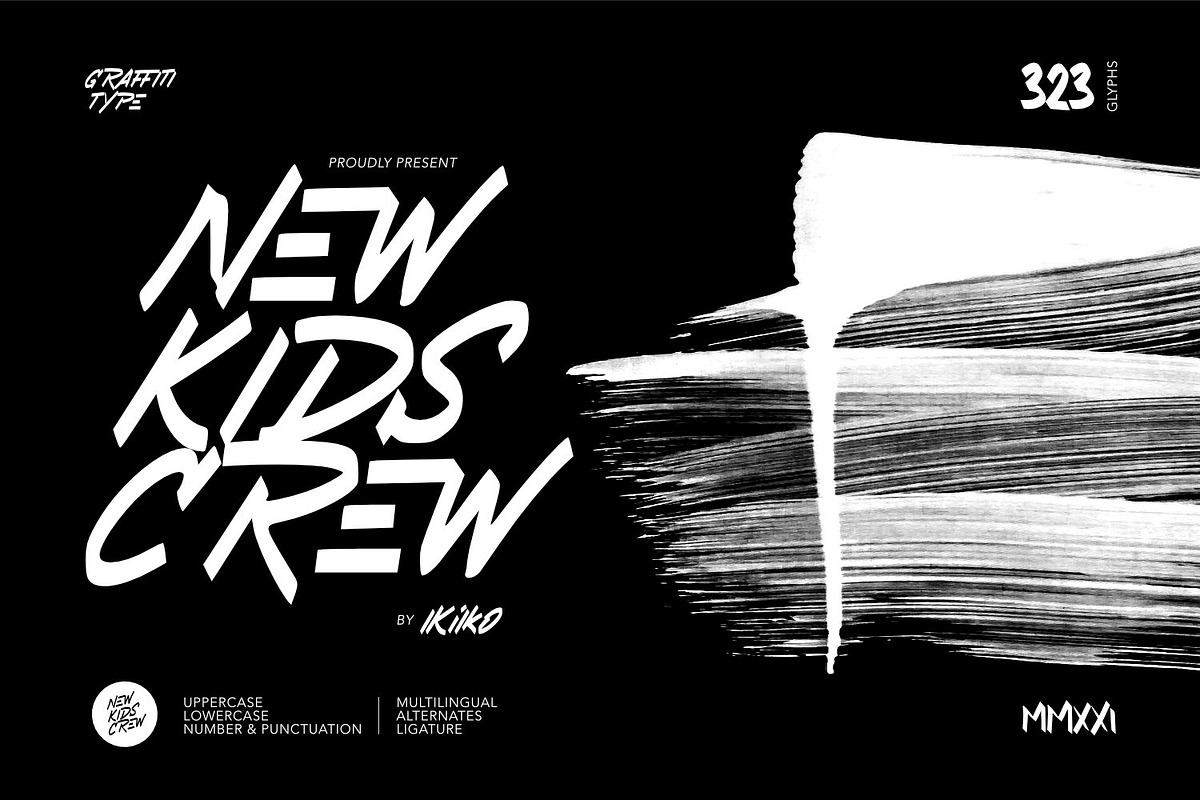
New Kids Crew - Graffiti Type Free Download
New Kids Crew - Graffiti Type Free Download is a bold and energetic typeface inspired by street art and graffiti culture. With its rough edges and urban flair, this font is perfect for projects that need to make a statement, such as music posters, streetwear branding, event flyers, and edgy social media content. Its raw, unrefined look adds an authentic, rebellious vibe to any design, while still maintaining readability and style. Whether you're creating graffiti-inspired logos, promotional materials, or artwork for an underground brand, New Kids Crew - Graffiti Type Free Download lets you test its dynamic design in personal projects before purchasing a commercial license. Add an urban edge to your designs with this striking and expressive graffiti font.